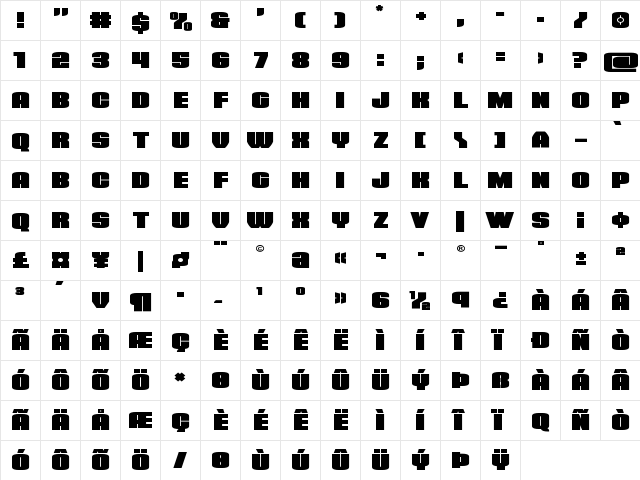
Elephant Gun Expanded Regular
Design Context for Elephant Gun Expanded Typeface
Elephant Gun Expanded is a composed and adaptable typeface that performs quietly and consistently across a wide range of design contexts.
Pro Tip: Use Elephant Gun Expanded in both headline and body roles to test its range before committing to a single application.